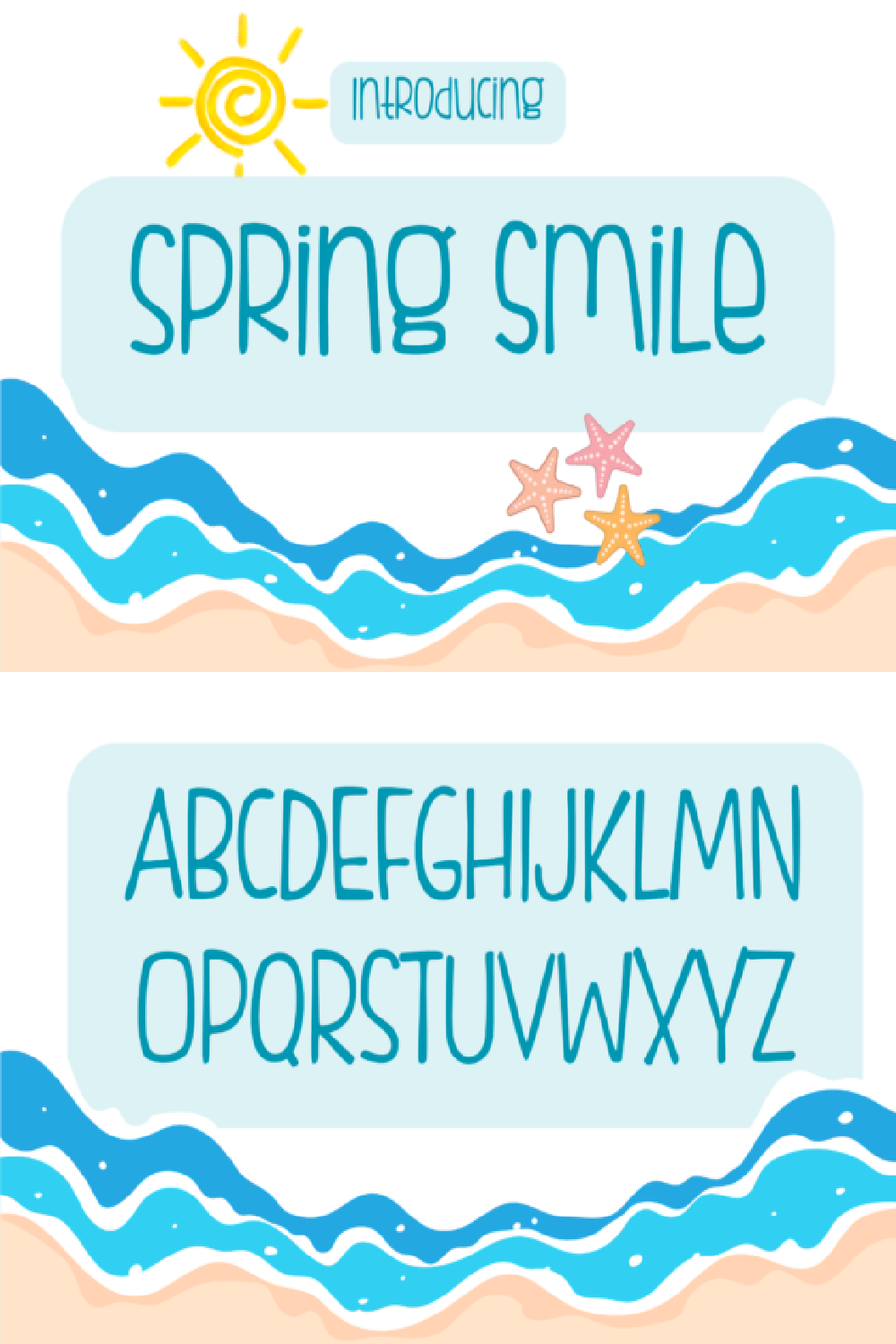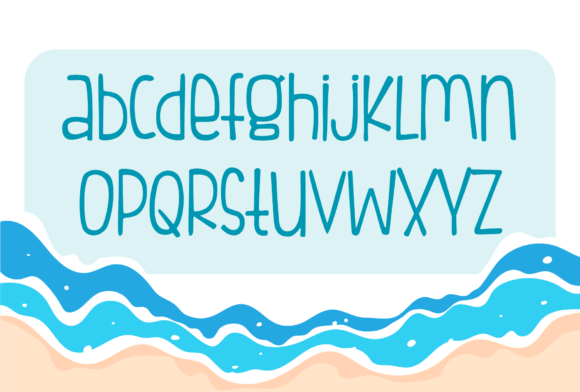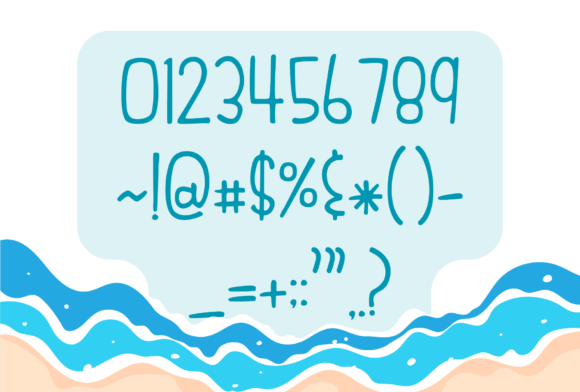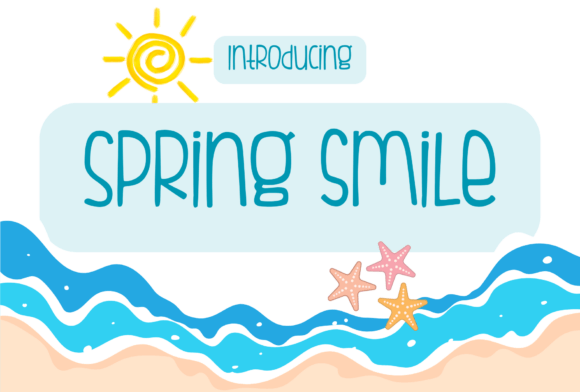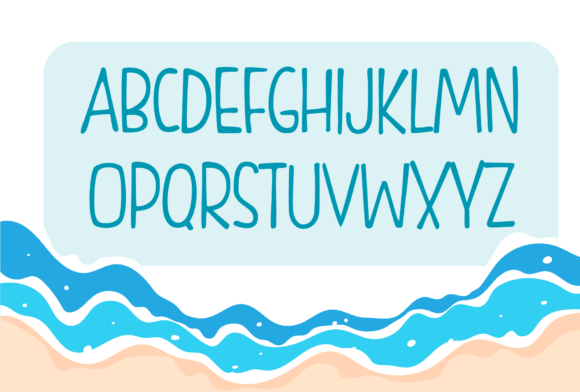
Spling Smile Font
About the Spling Smile Font
Experience the unique personality of Spling Smile Font, a font designed for impact. Spring Smile is a cheerful handwritten font with a breezy, beachy vibe. Rounded and childlike, it’s ideal for summer projects, kids’ designs, and anything that needs a playful and sunny touch.